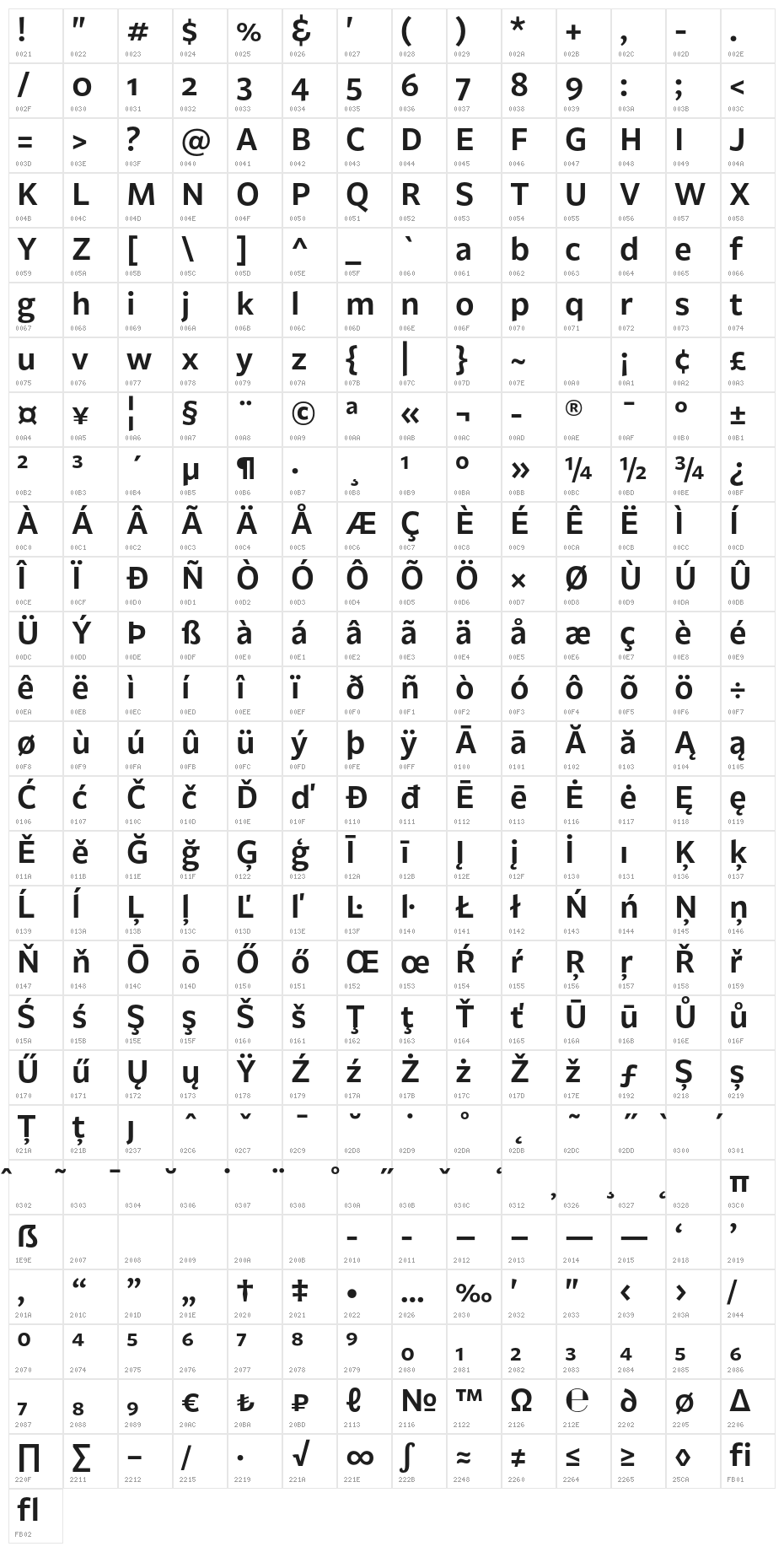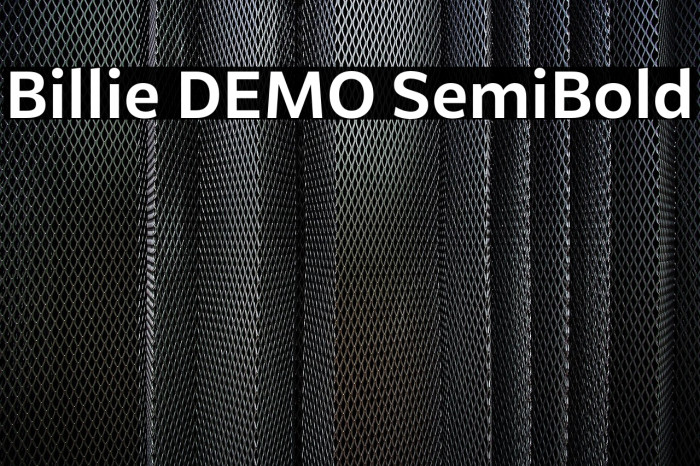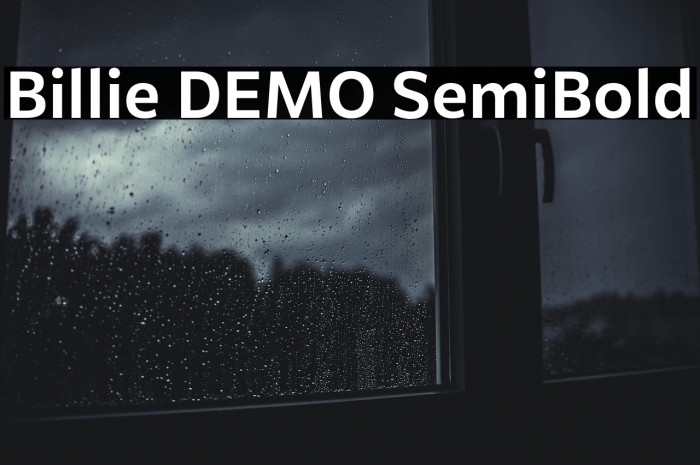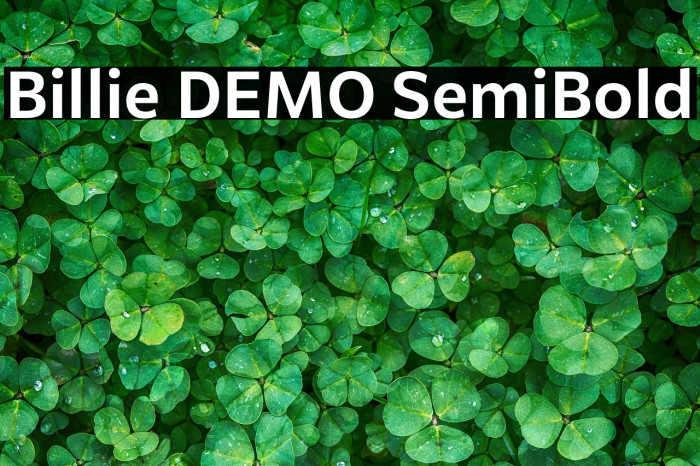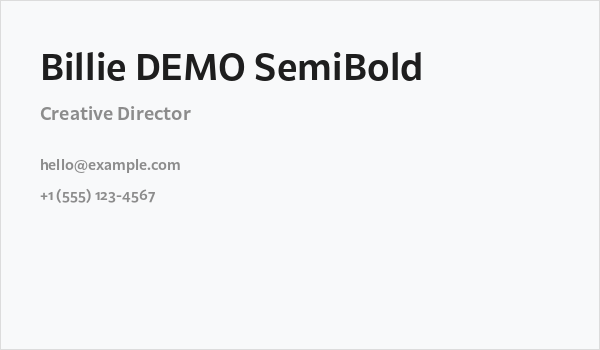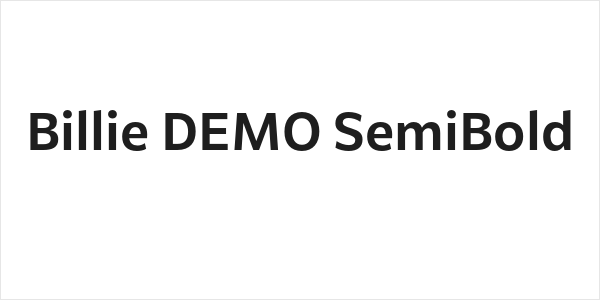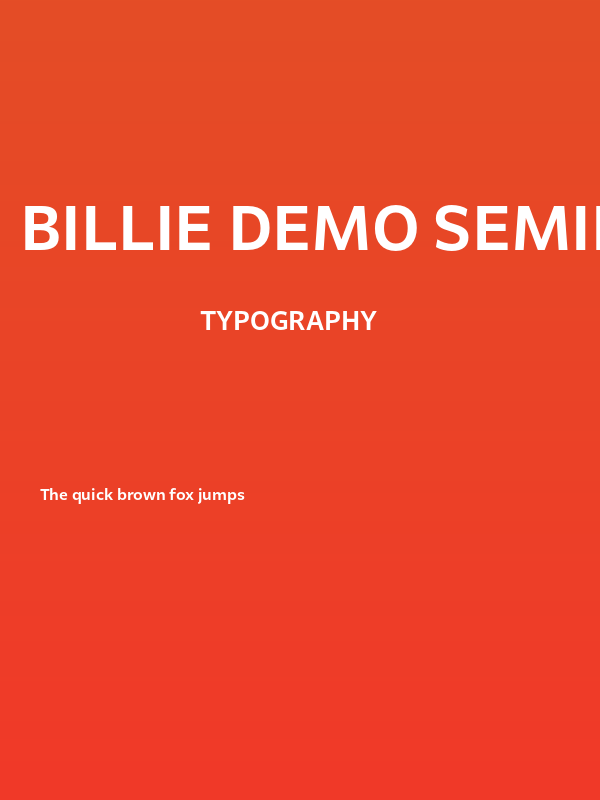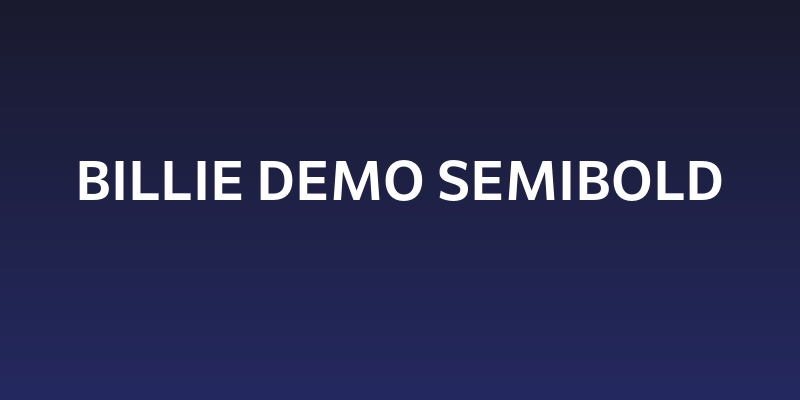
Billie DEMO SemiBold Font
Billie DEMO SemiBold Description
This font features a clean and modern sans-serif style with a semi-bold weight, offering a strong yet approachable appearance. The characters are well-proportioned with a consistent stroke width, providing a balanced and harmonious look. The uppercase letters are bold and commanding, while the lowercase letters maintain a friendly and accessible feel. The numerals are clear and easy to read, making them suitable for various applications. Special characters are included, enhancing the font's versatility. The overall design is straightforward and functional, ideal for both digital and print media.